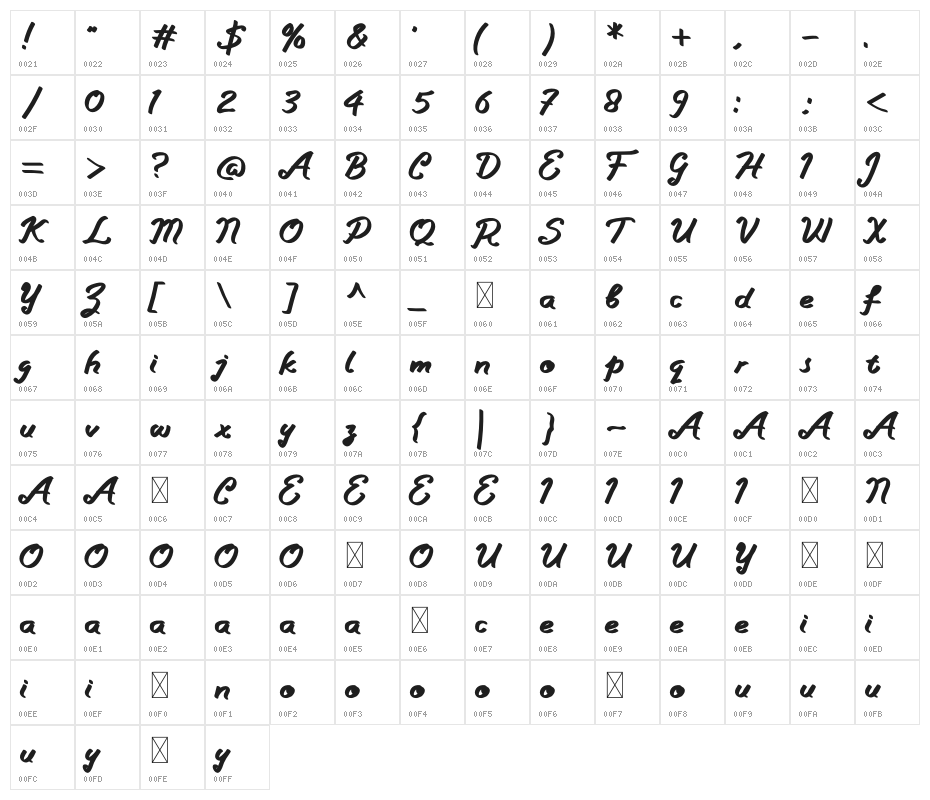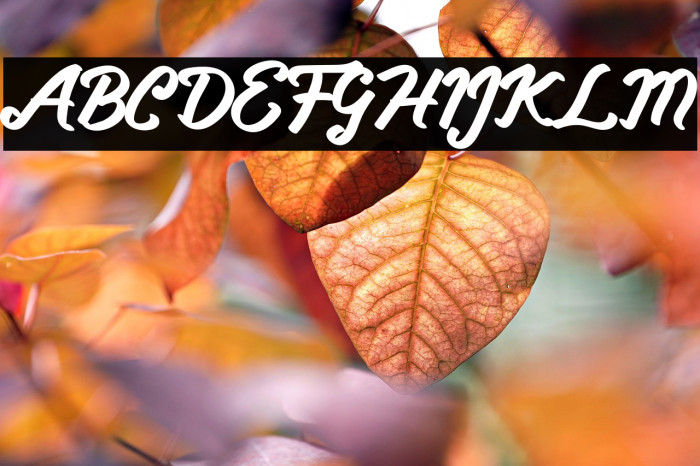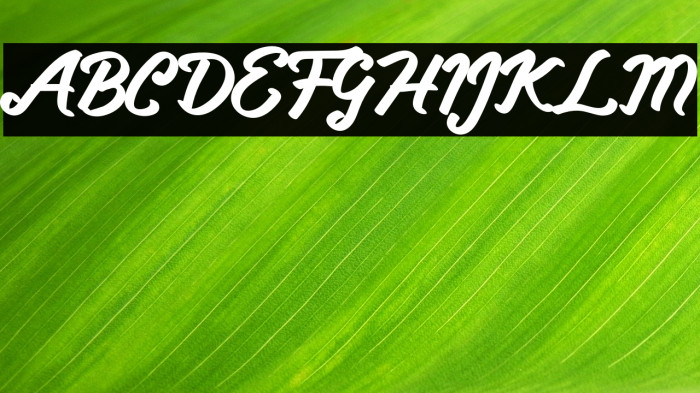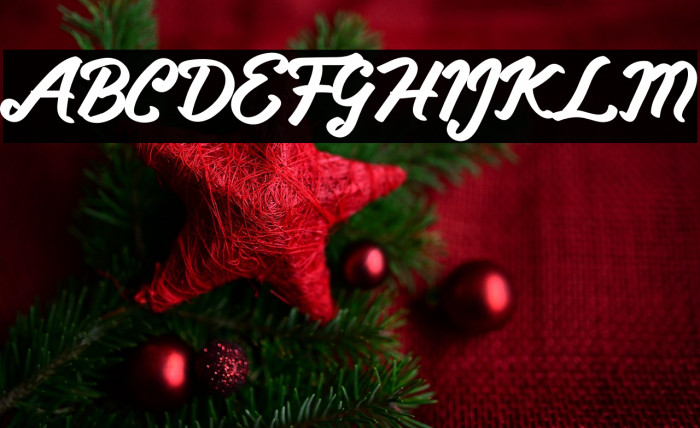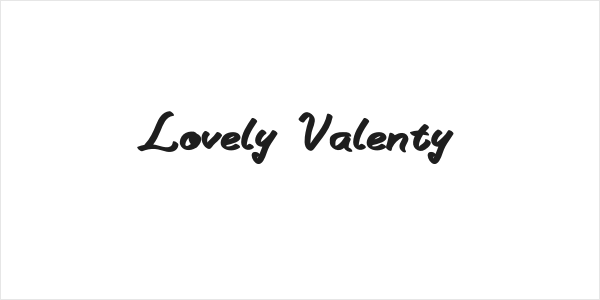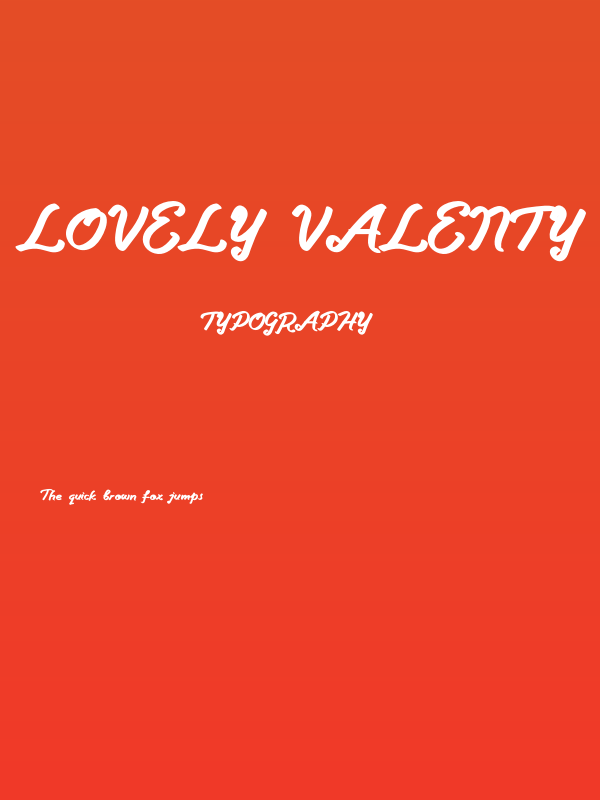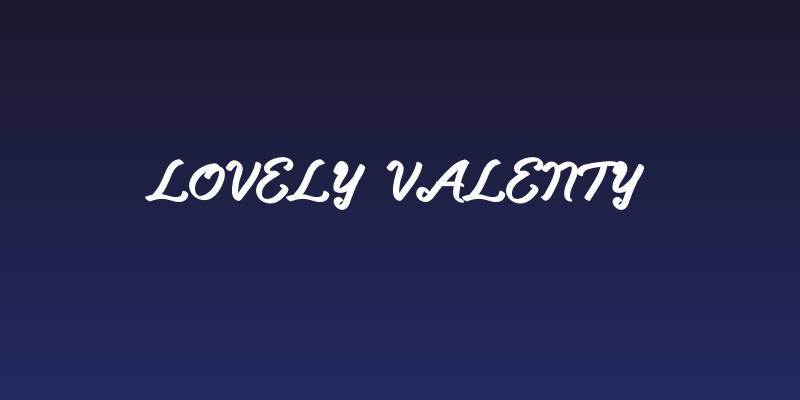
Lovely Valenty Font
Lovely Valenty Description
This font features a bold and expressive script style, characterized by its flowing, cursive letterforms that convey a sense of elegance and dynamism. The strokes are thick and consistent, providing a strong visual impact. The uppercase and lowercase letters are well-balanced, with a slight slant that enhances the handwritten feel. The numerals and special characters maintain the same boldness and fluidity, ensuring a cohesive look across all elements. This font is ideal for projects that require a personal touch or a sense of sophistication.